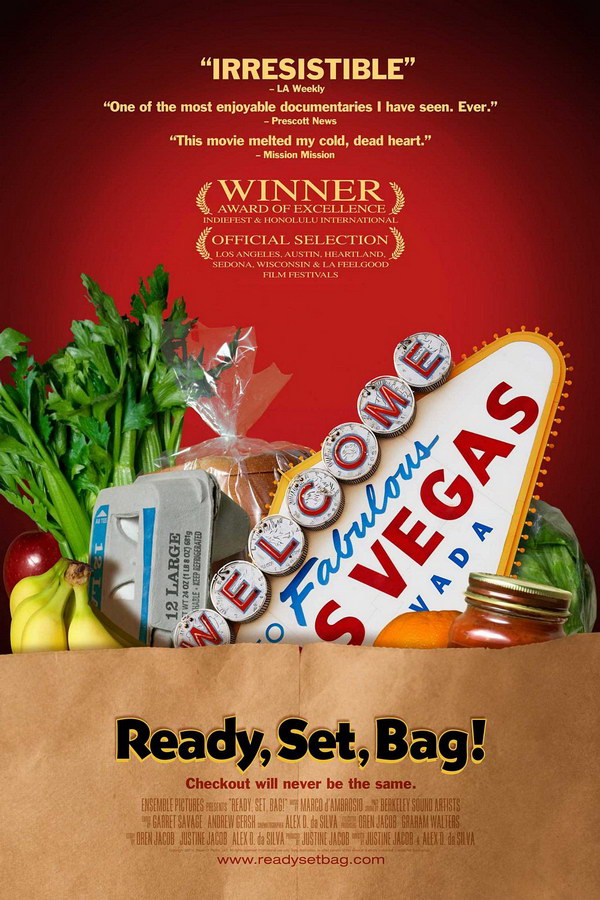
Ready Set Bag Font
The font used for the movie title in the poster is similar to Bernhard Gothic Extra Heavy. Bernhard Gothic is a geometric sans serifs family created by Lucian Bernhard for the ATF in 1929.